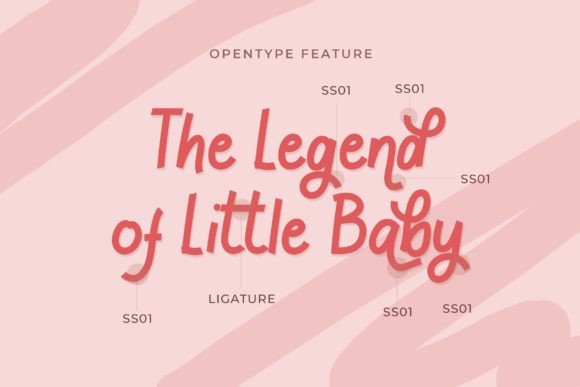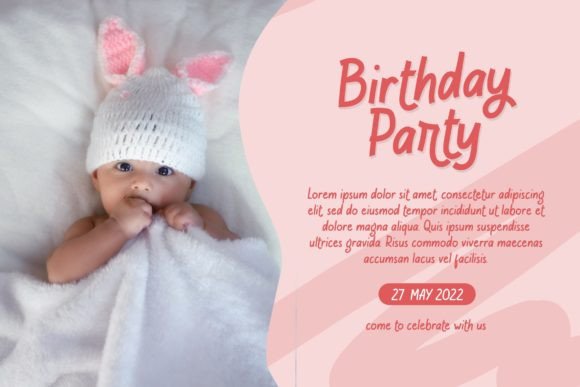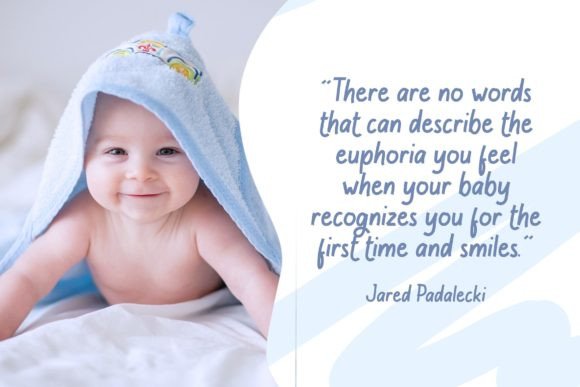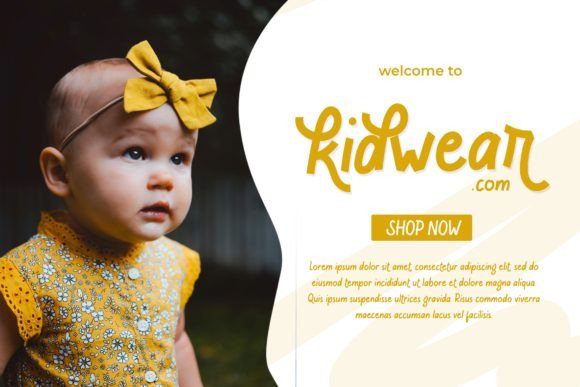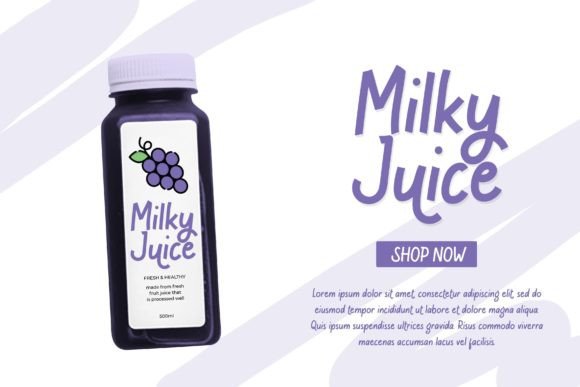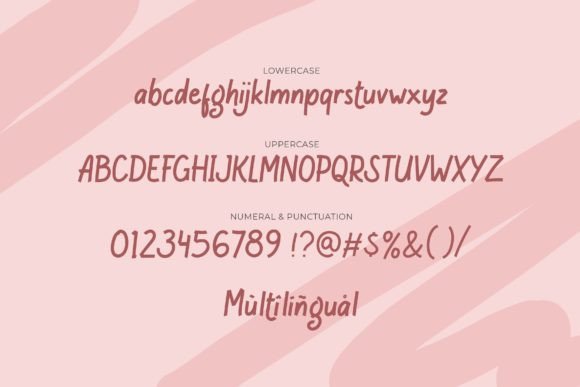
Introducing Erkafy Font: The Ultimate Handwritten Typeface for Cheerful Designs
Are you tired of using the same old fonts for your designs? Do you want to add a touch of personality and whimsy to your projects? Look no further than Erkafy Font, a handwritten typeface that is sure to bring a smile to your face. Erkafy is a carefully crafted font that exudes a sense of cuteness and adorableness, making it perfect for designers and crafters who want to create cheerful and engaging designs.
The Story Behind Erkafy Font
Erkafy Font is a labor of love, created with passion and dedication to bring a unique and special typeface to the design community. The font is the brainchild of a talented designer who wanted to create a font that would stand out from the crowd and bring a touch of warmth and personality to designs. With its handcrafted feel and attention to detail, Erkafy Font is sure to become a favorite among designers and crafters.
What Makes Erkafy Font So Special?
So, what sets Erkafy Font apart from other fonts out there? Here are just a few features that make it so special:
- Handwritten feel: Erkafy Font has a beautiful, handwritten feel that is perfect for designs that need a personal touch.
- Cute and adorable: This font is designed to be cute and adorable, making it perfect for designs that need a cheerful feel.
- PUA encoded: Erkafy Font is PUA encoded, which means that you can access all of the glyphs and swashes with ease.
- Versatile: This font is perfect for a wide range of design projects, from branding and logos to wedding designs and social media posts.
Uses for Erkafy Font
Erkafy Font is a versatile typeface that can be used for a wide range of design projects, including:
- Branding projects: Use Erkafy Font to create a unique and memorable brand identity.
- Logos: This font is perfect for creating logos that need a personal touch.
- Wedding designs: Erkafy Font is a great choice for wedding designs, such as invitations and stationery.
- Social media posts: Use this font to add a touch of personality to your social media posts.
- Advertisements: Erkafy Font is perfect for creating eye-catching advertisements that need a cheerful feel.
- Product packaging: Use this font to create product packaging that stands out from the crowd.
- Product designs: Erkafy Font is a great choice for product designs that need a personal touch.
- Labels: This font is perfect for creating labels that need a handwritten feel.
- Photography: Use Erkafy Font to create beautiful watermarks for your photographs.
- Invitations: This font is a great choice for creating invitations that need a personal touch.
- Stationery: Erkafy Font is perfect for creating stationery that needs a cheerful feel.
Why Designers and Crafters Love Erkafy Font
Erkafy Font has quickly become a favorite among designers and crafters, and for good reason. Here are just a few reasons why:
- Easy to use: This font is easy to use and can be accessed with ease, even for designers who are new to using PUA encoded fonts.
- High-quality design: Erkafy Font is a high-quality design that is sure to impress.
- Unique and special: This font is truly unique and special, making it perfect for designers who want to stand out from the crowd.
- Support for crafters: Erkafy Font is a great choice for crafters who want to create beautiful and unique designs for their products.
| Font Name | Erkafy Font |
| Author | Fikry Alfatih |
In conclusion, Erkafy Font is a must-have for designers and crafters who want to add a touch of personality and whimsy to their designs. With its handwritten feel, cute and adorable design, and PUA encoding, this font is perfect for a wide range of design projects. Whether you’re creating branding projects, logos, wedding designs, or social media posts, Erkafy Font is sure to bring a smile to your face and a touch of magic to your designs.